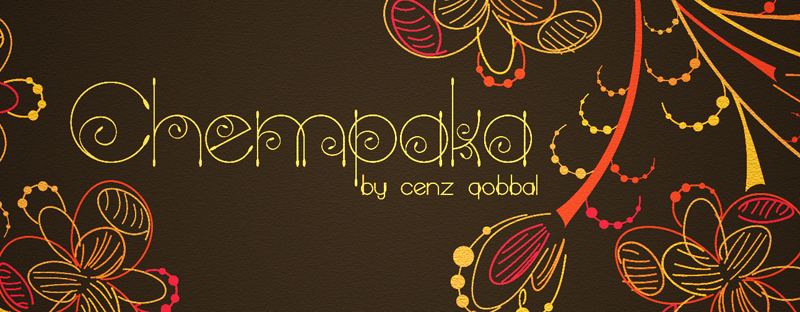
Chempaka by Cenz Qobbal is a free curly decorative font with tall, airy letters and an unmistakable flourish. Fine monoline strokes loop inward across many forms, turning crossbars and open spaces into compact spirals, while long verticals give the design a poised, architectural frame.
It can create an ornate title treatment for wedding invitations, beauty packaging, or boutique signage, with the curls functioning like built-in filigree. The romantic, theatrical drawing is especially suited to event clients and fashion or cosmetics brands seeking lettering that feels delicate but unconventional.